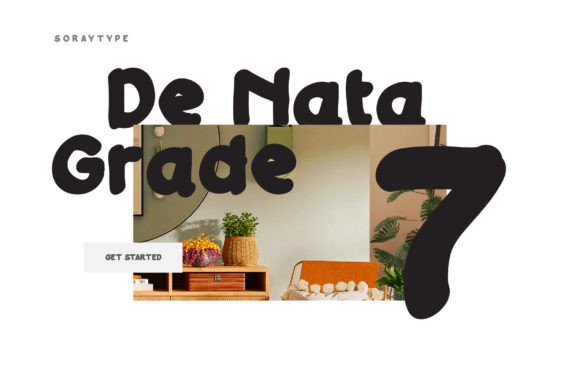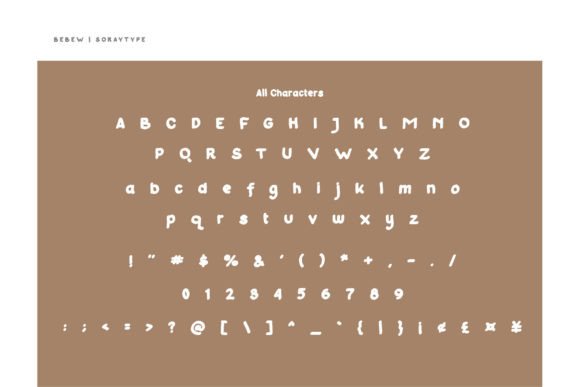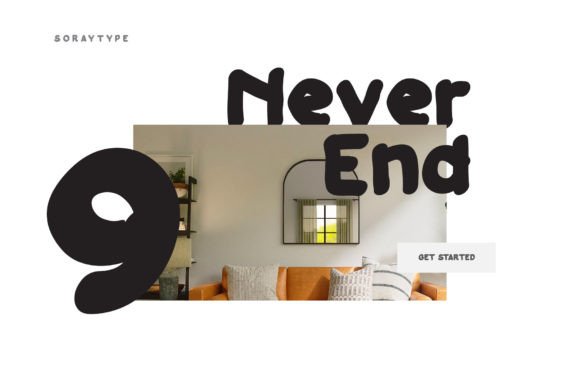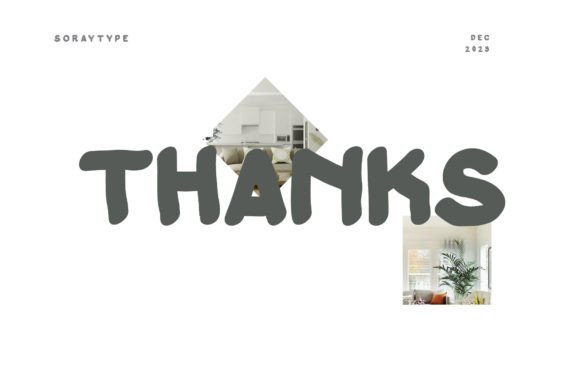
The Quest for the Perfect Handwritten Font: Discovering Bebew
I’ll never forget the time I was working on a wedding invitation project, and my client asked for a font that felt “warm and fuzzy.” I scoured the internet, tried countless fonts, but nothing seemed to capture that perfect blend of playfulness and sincerity. That was until I stumbled upon Bebew, a handcrafted marker font that instantly won me over. In this article, I’ll share my journey with Bebew, its unique features, and how you can make the most of this beautiful font in your designs.
An Honest Review of Bebew
So, what makes Bebew so special? Let’s dive into the good stuff and a few quirks I’ve discovered.
What I Love About Bebew
- ✨ Authentic Handwritten Feel: Bebew has a genuine, marker-drawn quality that adds a personal touch to any project.
- ✅ Playful and Friendly Vibe: This font injects a dose of warmth and approachability into your text, making it perfect for invitations, greeting cards, and more.
- 🎨 Versatility: Whether you’re designing for digital or print, Bebew adapts beautifully to various mediums.
While Bebew is a stunning font, there are a few things to keep in mind:
- 🤔 Legibility at Small Sizes: Like many handwritten fonts, Bebew can get a bit tricky to read at very small sizes. It’s best used at larger sizes where its charm can shine.
- ⚠️ Limited Formality: Bebew’s playful nature means it might not be the best fit for very formal or corporate designs. Know your audience!
The Story Behind Bebew
Bebew was crafted with love by a designer who wanted to capture the essence of handmade notes and letters. Inspired by the imperfect beauty of marker-drawn words, Bebew brings a slice of authenticity to digital and print designs. Though the designer prefers to remain anonymous, their passion for creating a font that feels both personal and approachable shines through in Bebew.
Q: What makes Bebew unique?
A: Bebew’s unique selling point is its genuine, handcrafted marker feel, which adds a warm and friendly vibe to text.
Q: Is Bebew suitable for body text?
A: While Bebew is beautiful, it’s best used for headings or short paragraphs due to its handwritten nature. For longer body text, a more traditional font might be more readable.
Bebew is more than just a font; it’s a way to add a dash of personality and warmth to your designs. Whether you’re crafting invitations, designing greeting cards, or simply looking for a font that feels more human, Bebew is an excellent choice. With its genuine handwritten feel and versatile nature, Bebew can help make your text uniquely expressive and approachable.